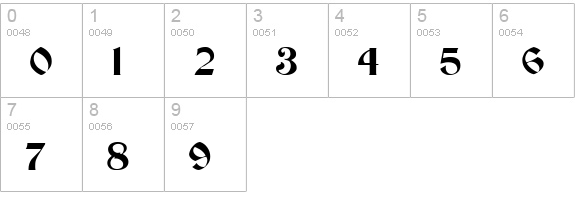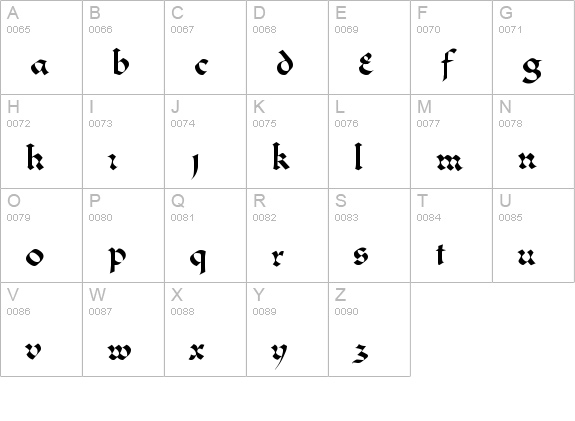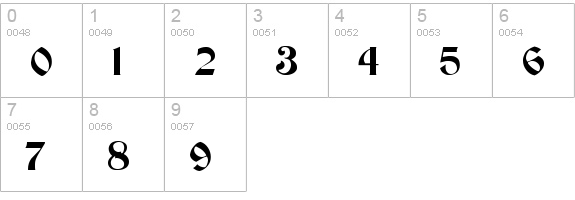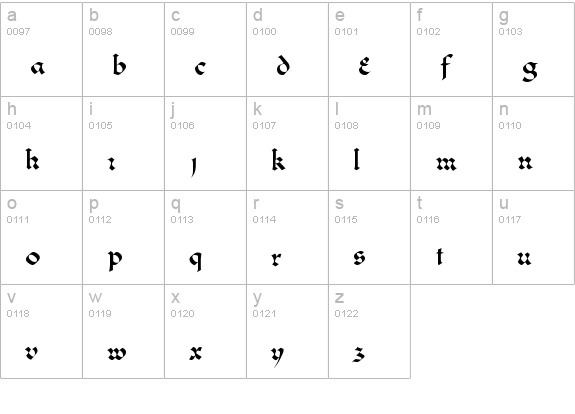
Zypresse Font Details
Zypresse font is a stunning and elegant typeface that exudes sophistication and style. With its unique blend of modern and classic features, Zypresse is perfect for a wide range of design projects, from branding to editorial design. The clean lines and smooth curves of this font make it highly versatile and easy to read, making it suitable for both print and digital applications. What makes Zypresse font even more appealing is that it is available for free download at FontsMarket.com. This means that you can access this beautiful font without any cost, making it a valuable addition to your font collection. Whether you're a designer looking for a fresh and stylish typeface or a business owner wanting to elevate your branding, Zypresse font is sure to impress with its timeless appeal and professional quality. Download Zypresse font today at FontsMarket.com and enhance your design projects with this exceptional and freely available typeface.